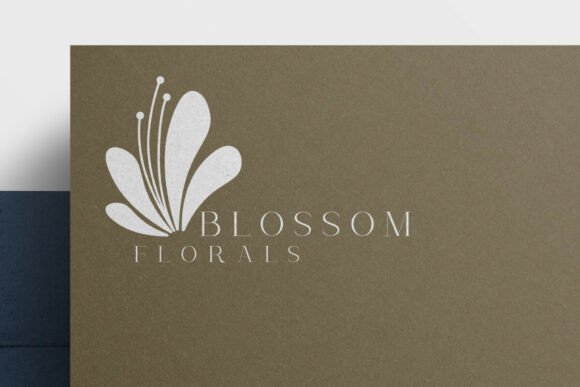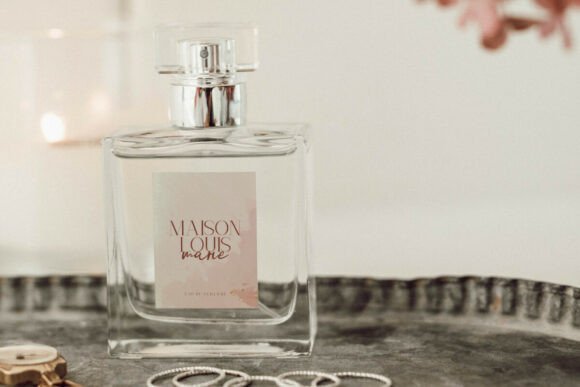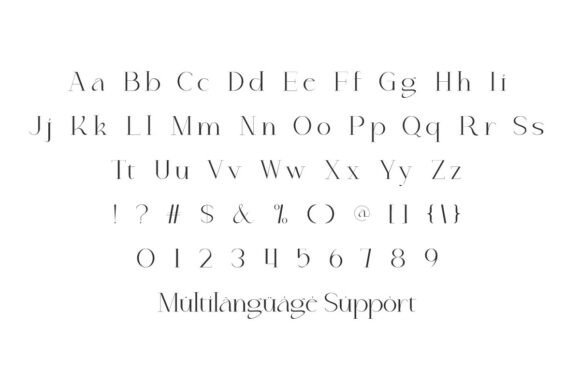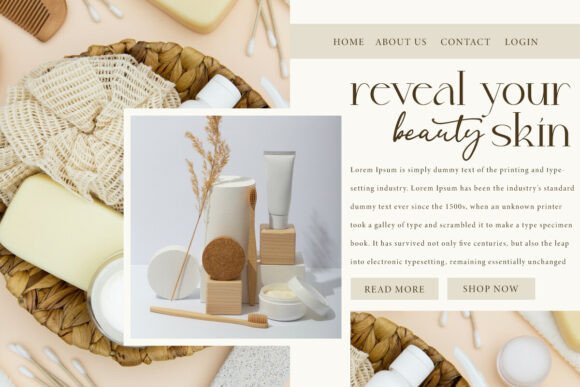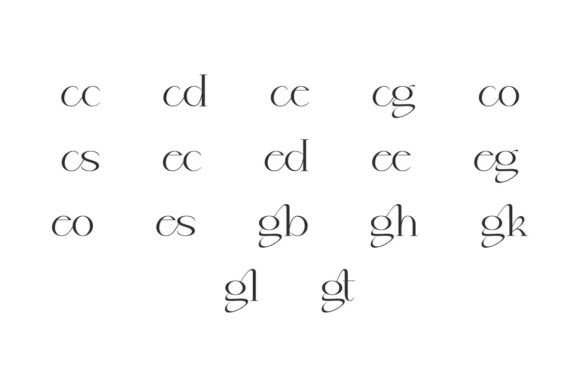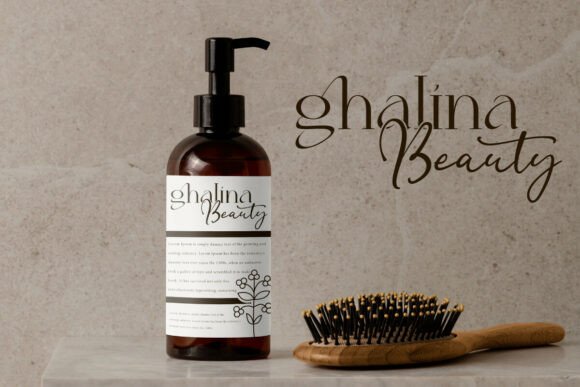
Introducing Delighted Beauty Font: Elevate Your Designs with Elegance and Sophistication
In the world of typography, a font can make all the difference in elevating a design from ordinary to extraordinary. Delighted Beauty Font is a stunning display typeface that embodies the perfect blend of modern design and classic artistry. With its two beautifully balanced styles, this charming duo font is sure to captivate designers and crafters alike.
A Refined, Light Serif Foundation
At first glance, Delighted Beauty Font appears as a classic duo font, but its essence lies in a refined, light serif foundation. This subtle yet sophisticated base is enhanced with elegant alternative characters, giving the font a unique and distinctive flair. The design features graceful uppercase and lowercase letters, meticulously crafted to exude a timeless, handcrafted allure.
A Perfect Blend of Luxury and Approachability
Every curve and serif in Delighted Beauty Font is shaped with care, resulting in a typeface that feels both luxurious and approachable. This perfect blend of contrasting characteristics makes it an ideal choice for a wide range of design applications, from billboards and greeting cards to packaging and product labels. Whether you’re looking to create a sophisticated brand identity or add a touch of elegance to your editorial projects, Delighted Beauty Font is the perfect choice.
Delighted Beauty Font is a versatile typeface that shines both as a standalone display font and as part of a stylish pair. Its adaptability allows it to seamlessly integrate with various design styles, making it an excellent addition to any designer’s toolkit. Whether you’re working on apparel branding, cosmetics, floristry, skincare, or spa designs, this font is sure to elevate your creations with an air of sophistication and elegance.
Comprehensive Character Set
Delighted Beauty Font includes a complete set of uppercase and lowercase characters, numerals, punctuation, and special characters, ensuring that you have everything you need to create stunning designs. The font’s comprehensive character set makes it easy to use for a wide range of projects, from websites and editorial designs to product labels and watermarks.
Ideal for Various Design Applications
Delighted Beauty Font is perfect for:
- Billboards and large-scale displays
- Watermarks and branding
- Websites and editorial projects
- Apparel branding and fashion designs
- Cosmetics and skincare branding
- Floristry and spa designs
In conclusion, Delighted Beauty Font is a stunning display typeface that offers a perfect blend of modern design and classic artistry. Its refined, light serif foundation, elegant alternative characters, and comprehensive character set make it an ideal choice for designers and crafters looking to elevate their designs with elegance and sophistication. Whether you’re working on a large-scale display or a small branding project, Delighted Beauty Font is sure to impress.